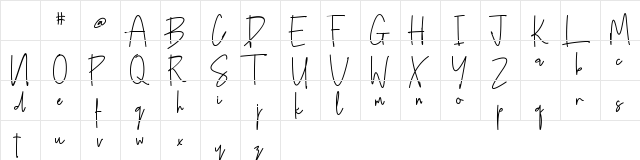
Complete Nebbulla Regular glyph index. Displaying only characters natively supported by Nebbulla Regular font.
Nebbulla is a composed and adaptable typeface that performs quietly and consistently across a wide range of design contexts.